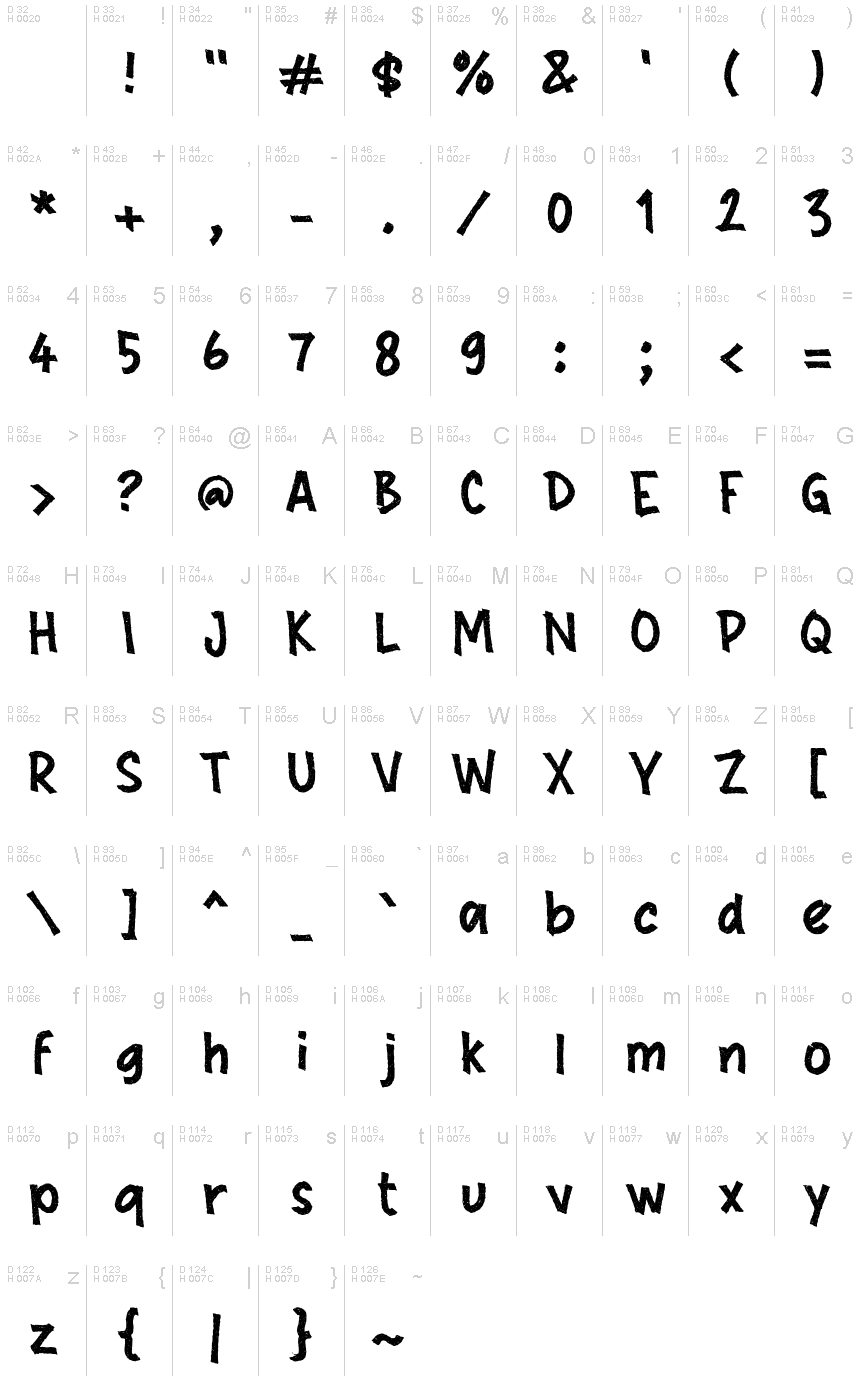
Halfroad
Halfroad font by wep is a bold brush typeface combining obvious textured strokes together. This free font has an edgy distressed look that makes it unique while also keeping it readable with its medium descenders and ascenders. The letters are informal irregular in their construction with playful rounded corners.
Designers can use Halfroad in vintage sporty themes, logos, and apparel branding. Typography enthusiasts can make good use of the font's dynamic character through posters, flyers, packaging design, or headlines.